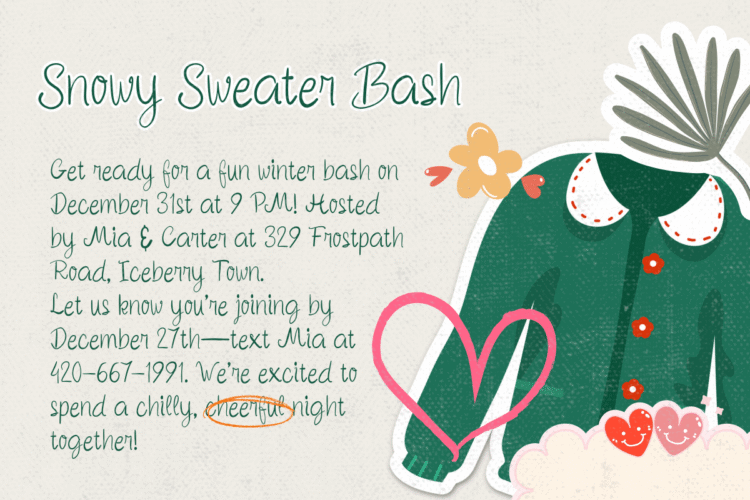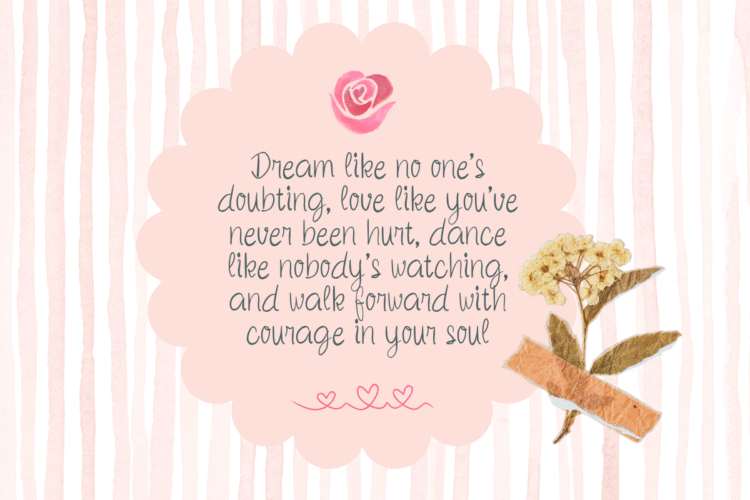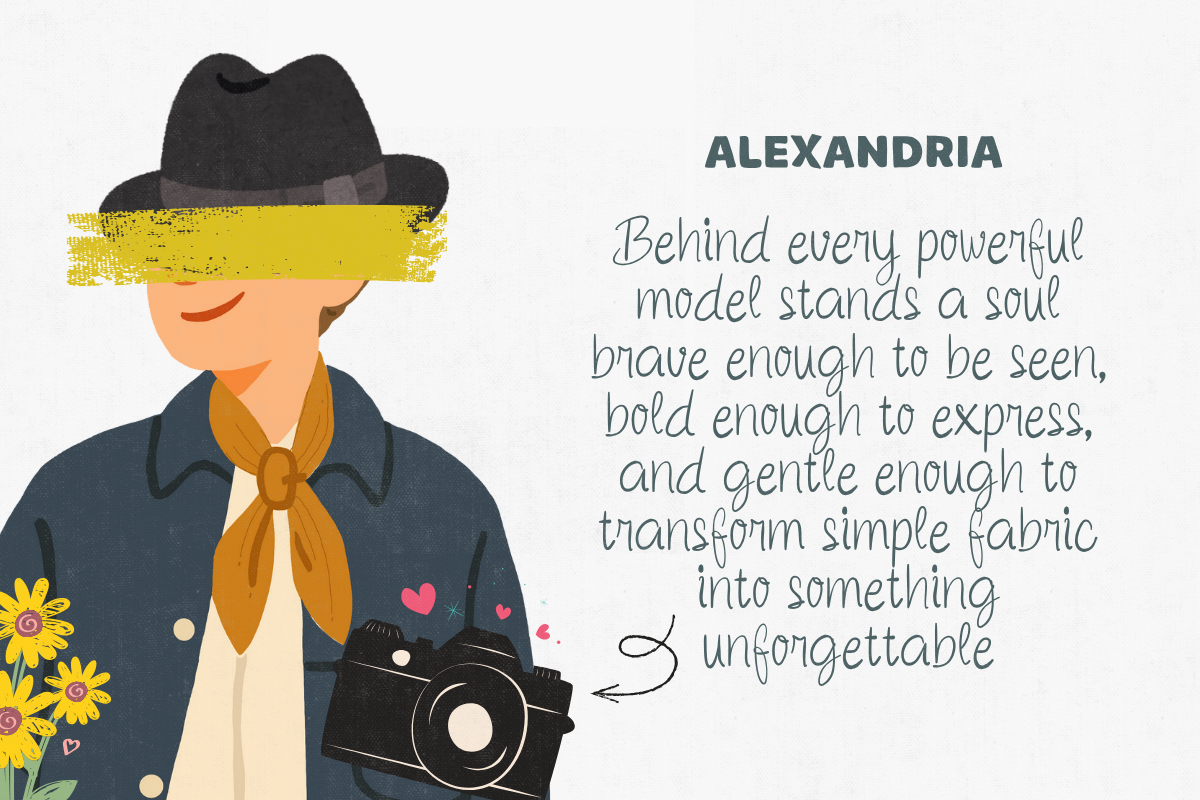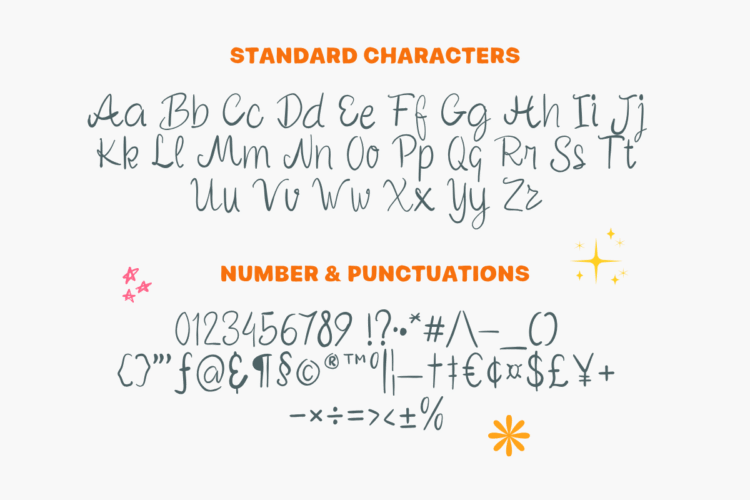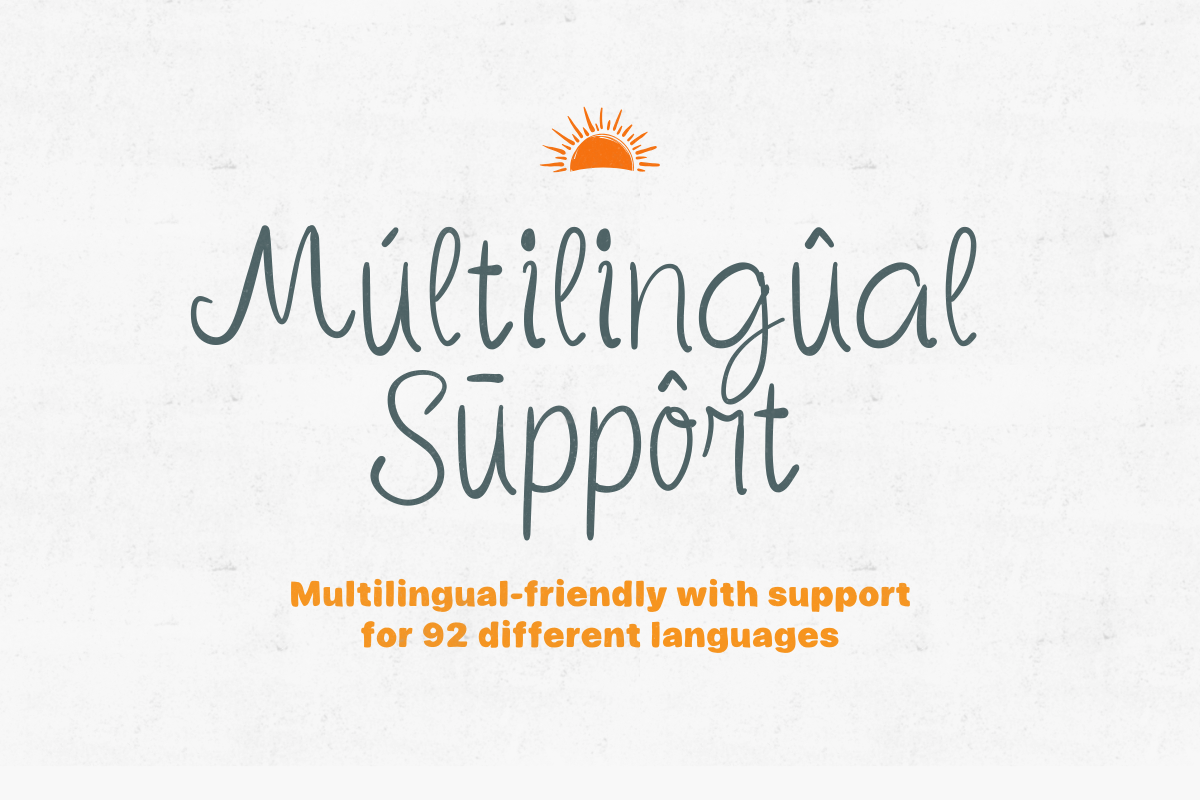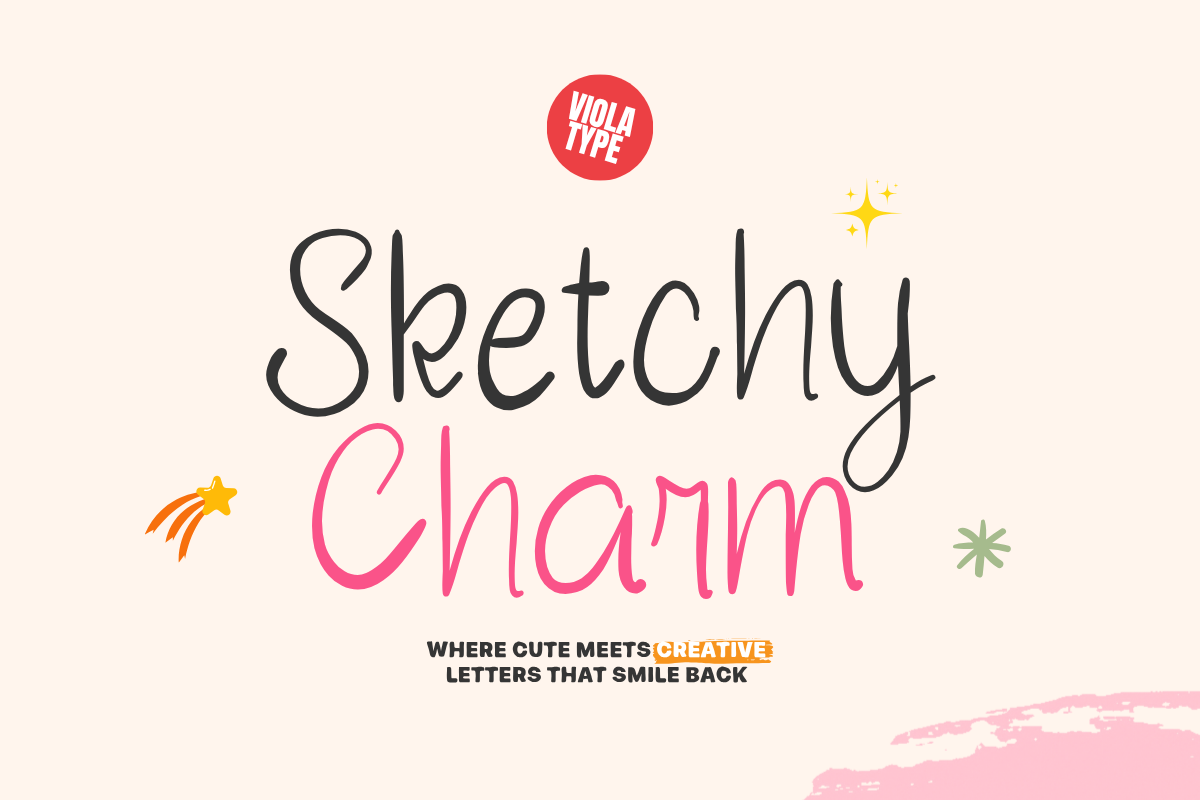
Sketchy Charm is a playful handwritten font designed to bring warmth, personality, and effortless creativity to every project. With its smooth strokes, natural letter flow, and charming handmade feel, this font adds a joyful and authentic touch to branding, social media designs, invitations, logos, packaging, quotes, and more.
Crafted with attention to detail, Sketchy Charm includes complete standard characters, numbers, punctuation, and full multilingual support for 92 languages, making it a versatile choice for global designers and creative professionals.
Its friendly curves and slightly sketchy style make every word look expressive, approachable, and uniquely stylish—perfect for projects that need a fun yet clean handwritten aesthetic.
Full A–Z uppercase & lowercase
Numbers & punctuation
Symbols & currency characters
Supports 92 languages
Smooth, clean, and easy-to-read handwriting style